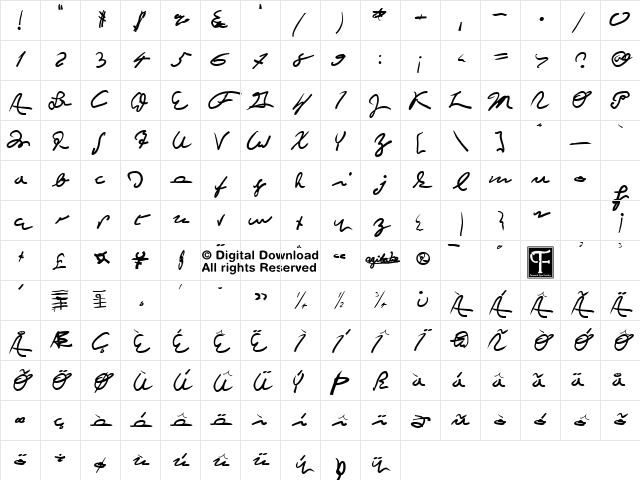
Complete Beethoven Def Regular glyph index. Displaying only characters natively supported by Beethoven Def Regular font.
Beethoven Def is a composed and adaptable typeface that performs quietly and consistently across a wide range of design contexts.